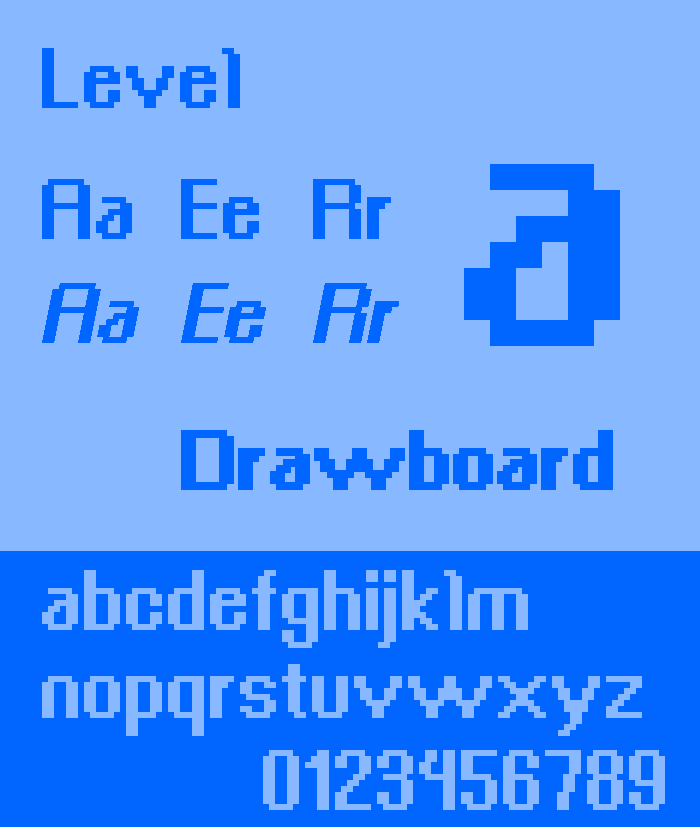
Preview of the Level font, with some adjustments to the Drawboard Text to be bolder
Linear B Syllabary will be added with glyphs being based on other known Pixel fonts with that unicode block support, with modifications
Unicode 16 will also be added
unicode 16 has more than 65536 glyphs, therefore making it impossible to put it in a font.
@Digitalio-2 The Noto collection and Unifont managed to get around that limitation by utilizing multiple font files…
A subset of those glyphs will be added
Currently fixing up the block element and box drawing glyphs, in preparation for Symbols for Legacy Computing Supplement implementation
Symbols for Legacy Computing Supplement glyphs will be added at random. Outlined glyphs are in development
Fun fact: While the outlined digits are defined as decimal digits, the outlined letters are defined as symbols and not letters
All glyphs that were above/below the three pixel threshold of the the additional space after the top/baseline. Some were tweaked (Like most glyphs with two diacriticals). This means that the downloaded version can now be used with box drawing glyphs with lesser issues
Symbols for Legacy Computing Supplement coverage is finishing soon. 19 glyphs left for implementation
Fun Fact: 𜷿 (U+1CDFF) can also work well as a third frame for the speckle fills alongside 𜱆 (U+1CC46) and 𜱇 (U+1CC47)
Partial Devanagari Support has been added